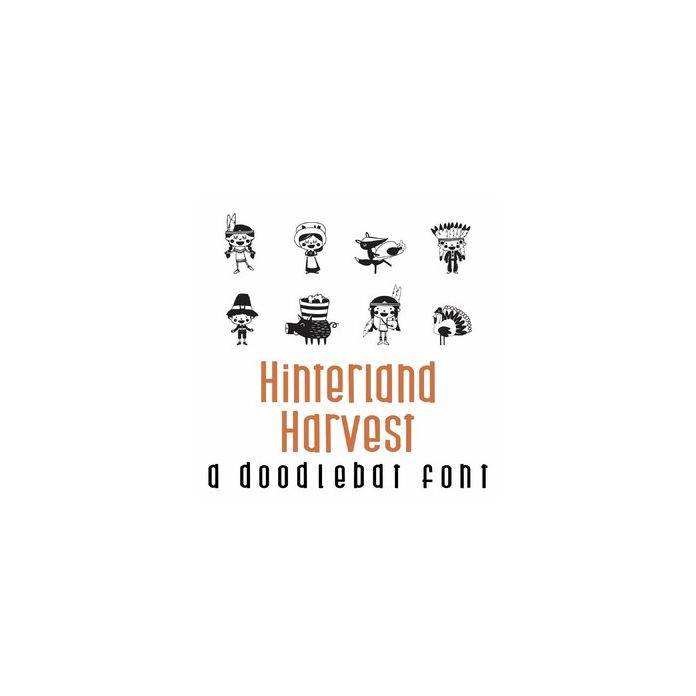
Hinterland Harvest Doodlebat Font
This fun doodlebat font features 26 Thanksgiving themed imagery of Pilgrims, Indians and animals all sharing a feast. Perfect for cards, crafts, gifts, decor, scrap book pages, planner stickers and more!